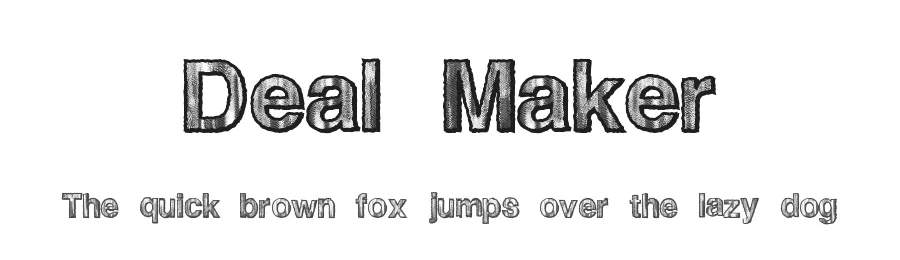
About Dirty Headline Font
A revised edition with several expansions, including full U.S. keyboard set, smart-quotes and money symbols(euro, yen, pound sterling, cent).
Dirty Headline Font is a decorative font that shines as a display or heading face. Pair it with a clean sans-serif or serif font for body text β the contrast creates a clear hierarchy while the two styles stay balanced and easy to read.